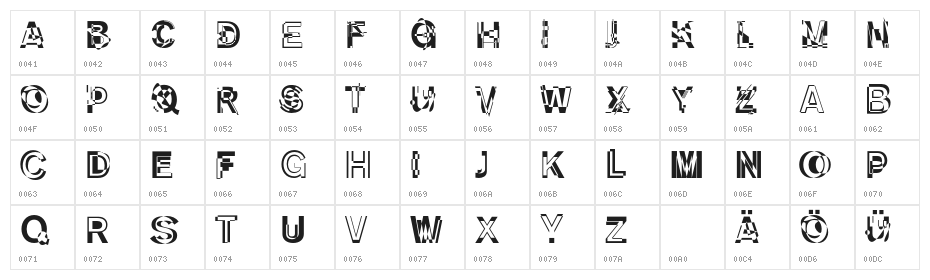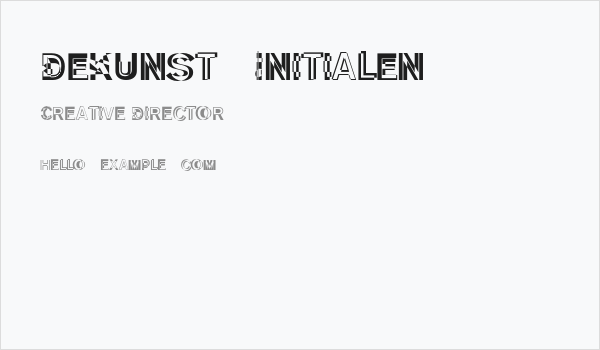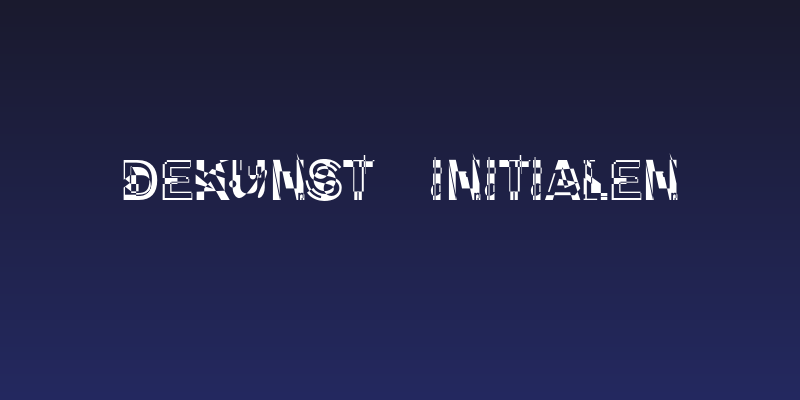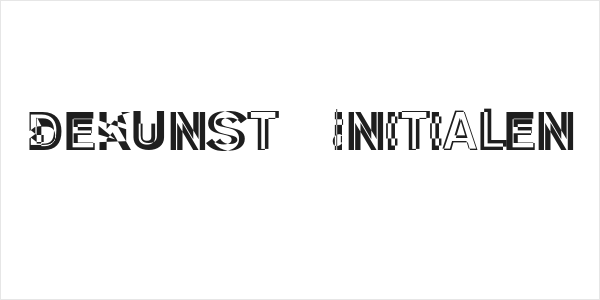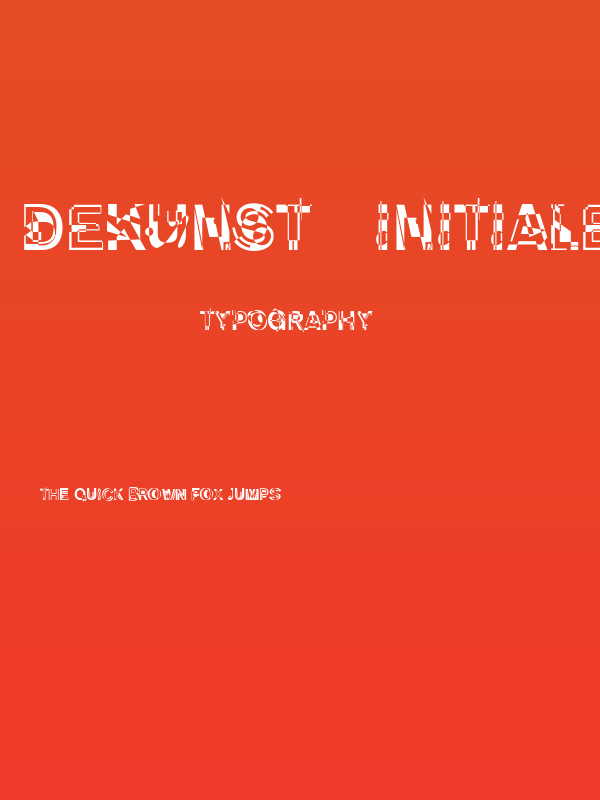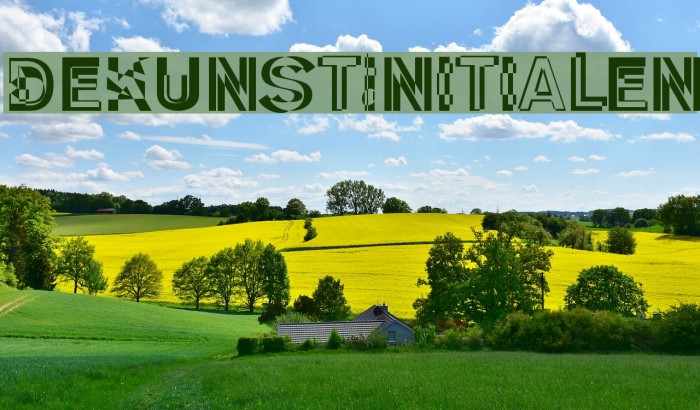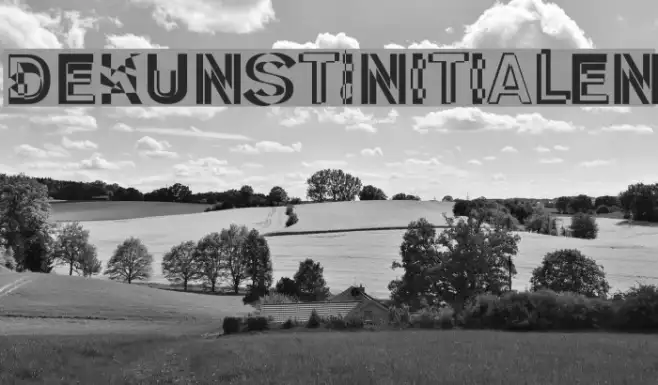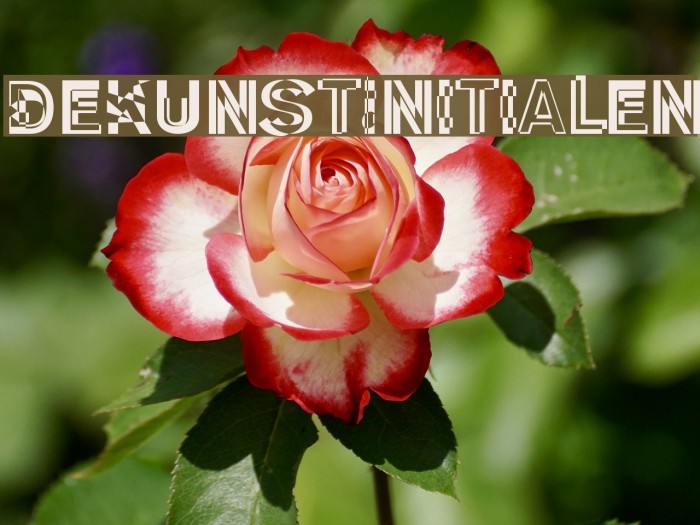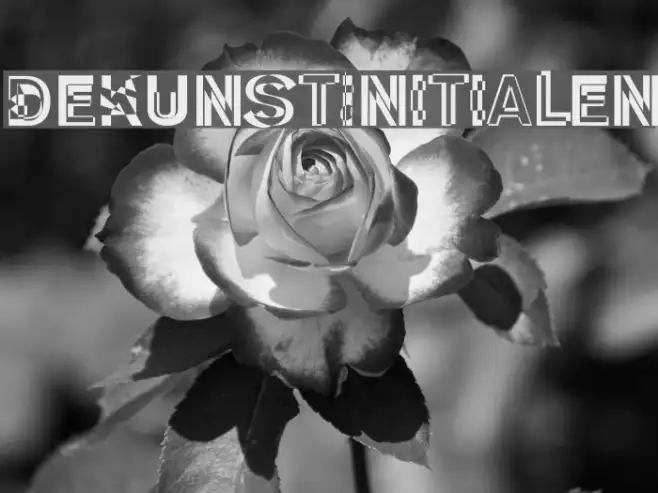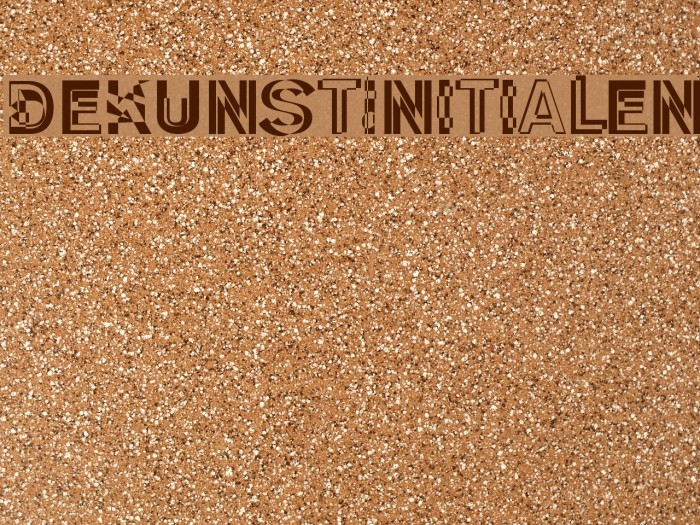
DeKunst-Initialen Font
DeKunst-Initialen Description
This font features a bold and striking design with a unique, artistic flair. Each character is composed of fragmented and overlapping geometric shapes, creating a sense of movement and energy. The letters are uppercase and maintain a consistent height, giving the font a uniform appearance despite its intricate design. The use of negative space and contrasting black and white elements adds depth and dimension, making it visually engaging. This font is ideal for projects that require a modern and edgy aesthetic, as it draws attention and makes a bold statement.
| Proposed Projects | Ideal for branding, posters, album covers, and any project that requires a modern, artistic touch. |